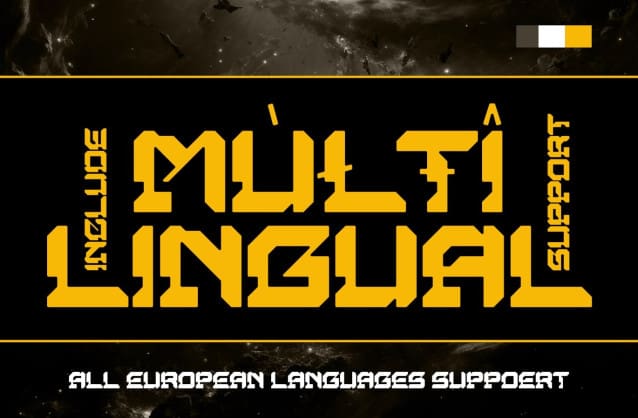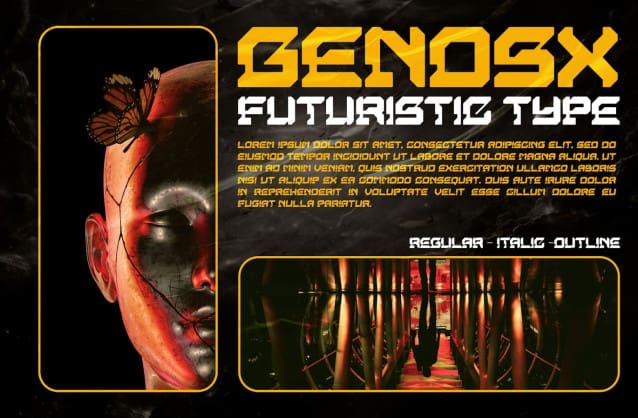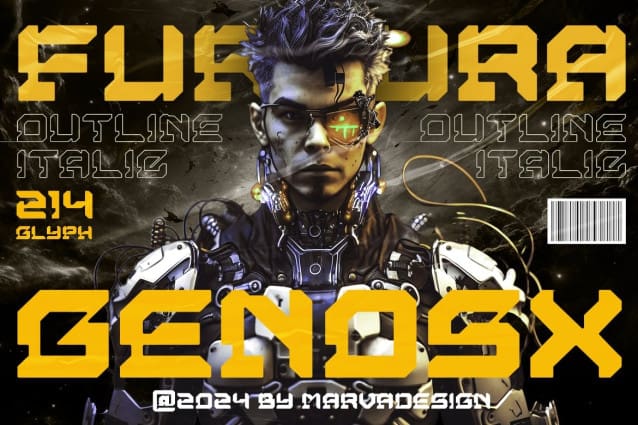
Genosx Futuristic Font
Genosx Futuristic Font, A Retro Future Font, authentic display font. The font is suitable for all branding projects like Logo, Template Design, Products and many more. It is exceptional in a wide range of contexts